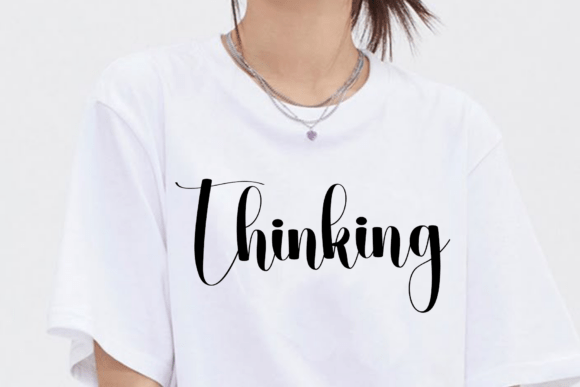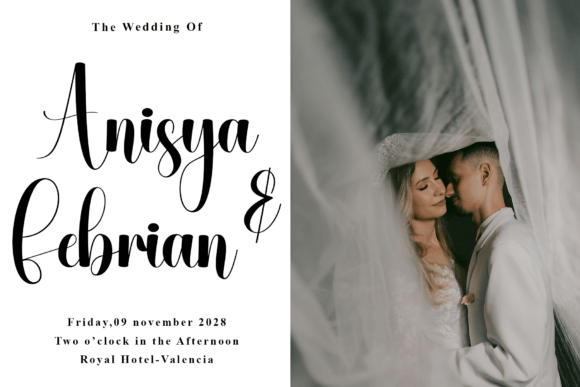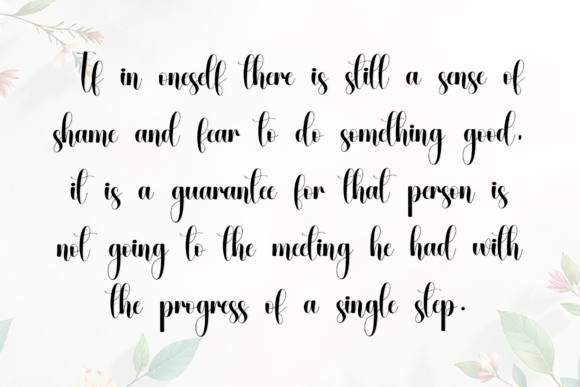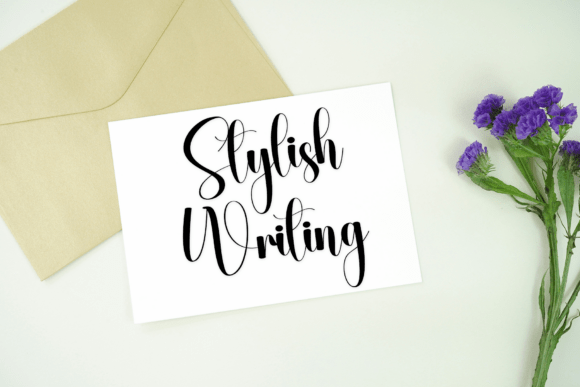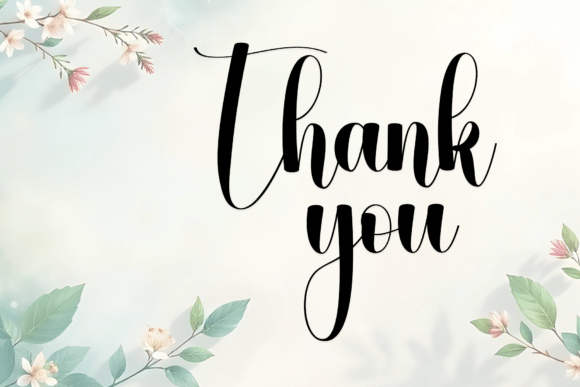
The Designer’s Delight: Ashley Southine Font
I still remember the design project that led me to discover the Ashley Southine Font. I was working on a branding project for a boutique client, and I needed a font that would capture the essence of her artistic and elegant brand. After hours of scrolling through font libraries, I stumbled upon Ashley Southine, and it was love at first sight! ✨ The fluid brush strokes, dynamic curves, and expressive letterforms instantly resonated with my client’s aesthetic.
- ✨ Artistic flair: Ashley Southine exudes a creative and sophisticated vibe, perfect for designs that require a personal touch.
- ✅ Versatility: This font is incredibly versatile, suitable for logos, invitations, packaging, and social media graphics.
- 💫 Visual impact: The natural flow and vibrant character of Ashley Southine make it a showstopper in any design.
While Ashley Southine is an amazing font, there are a few things to keep in mind: ⚠️ It may not be the best choice for body text or long-form content, as its script nature can be challenging to read in large quantities. 🤔 Additionally, some users may find the font’s stylistic alternates and glyphs require a bit of experimentation to master.
Ashley Southine was inspired by the world of hand-painted calligraphy, where artistic expression meets modern elegance. The font’s creator aimed to capture the essence of this art form, infusing it with a contemporary twist that would appeal to designers and crafters alike. 💫
| Font Name | Ashley Southine Font |
| Author | Black line |
| What type of designs is Ashley Southine best suited for? | Ashley Southine is ideal for logos, invitations, packaging, and social media graphics that require a creative and sophisticated touch. |
| Can I use Ashley Southine for body text or long-form content? | While possible, Ashley Southine’s script nature may make it challenging to read in large quantities. It’s best used for headlines, titles, or short-form content. |
| Does Ashley Southine support OpenType features? | Yes, Ashley Southine supports OpenType features, including stylistic alternates, glyphs, and swashes, which can be accessed in compatible design software. |